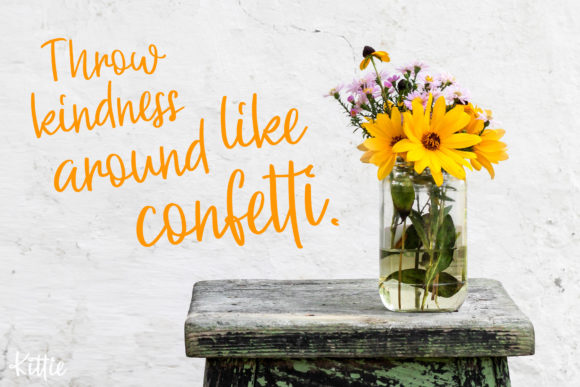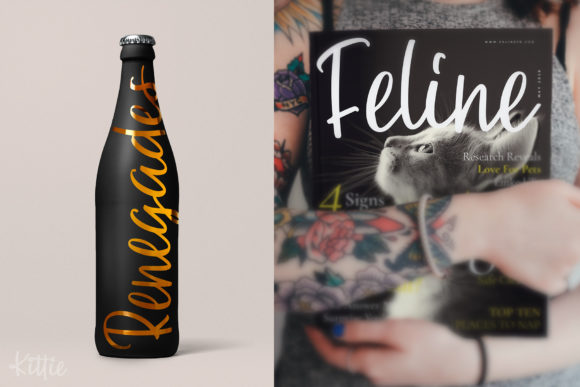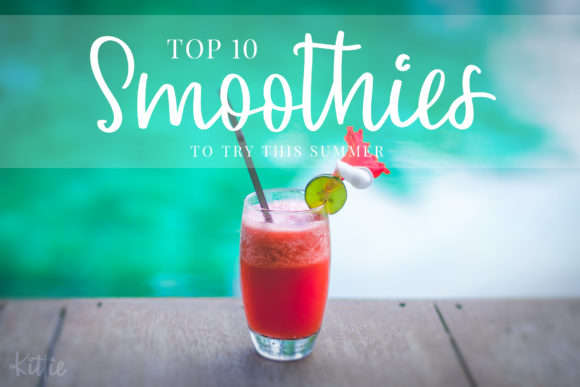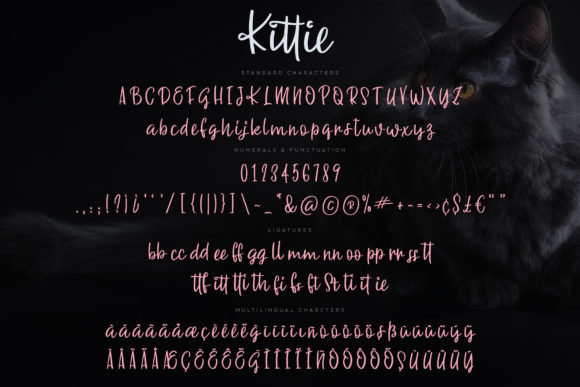
About Kittie Font
Kittie emerges as a standout handwritten script font, characterized by its abundance of ligatures and versatility. Available in two styles—regular and bold, both boasting smooth edges—the font is expertly designed, making it an ideal choice for vinyl cutting applications.
The inclusion of ligatures in Kittie adds a distinctive and elegant touch to its script style. This feature enhances the fluidity of the characters, allowing them to seamlessly connect and create a visually appealing and cohesive appearance. The ligatures contribute to the overall uniqueness of Kittie, making it a valuable asset for a variety of creative projects.
The availability of two styles, regular and bold, further expands the font’s utility. The smooth edges ensure precision and clarity, making Kittie well-suited for applications like vinyl cutting where clean lines are essential. This makes it a go-to choice for creating logos, branding elements, and quotes that demand a polished and professional appearance.
Kittie’s versatility shines through in its suitability for a wide range of design projects. From social media posts to packaging, invitations, posters, flyers, and more, the font adapts seamlessly to diverse creative contexts. Its unique characters add a touch of individuality, making Kittie a valuable tool for designers aiming to create visually striking and memorable content.
In summary, Kittie is not just a font; it’s a versatile and well-crafted design tool. With its ligatures, two styles, and smooth edges tailored for vinyl cutting, Kittie is poised to enhance logos, branding materials, quotes, and various other design elements. Its adaptability across different mediums makes it a reliable choice for designers seeking a script font that combines elegance with practicality.